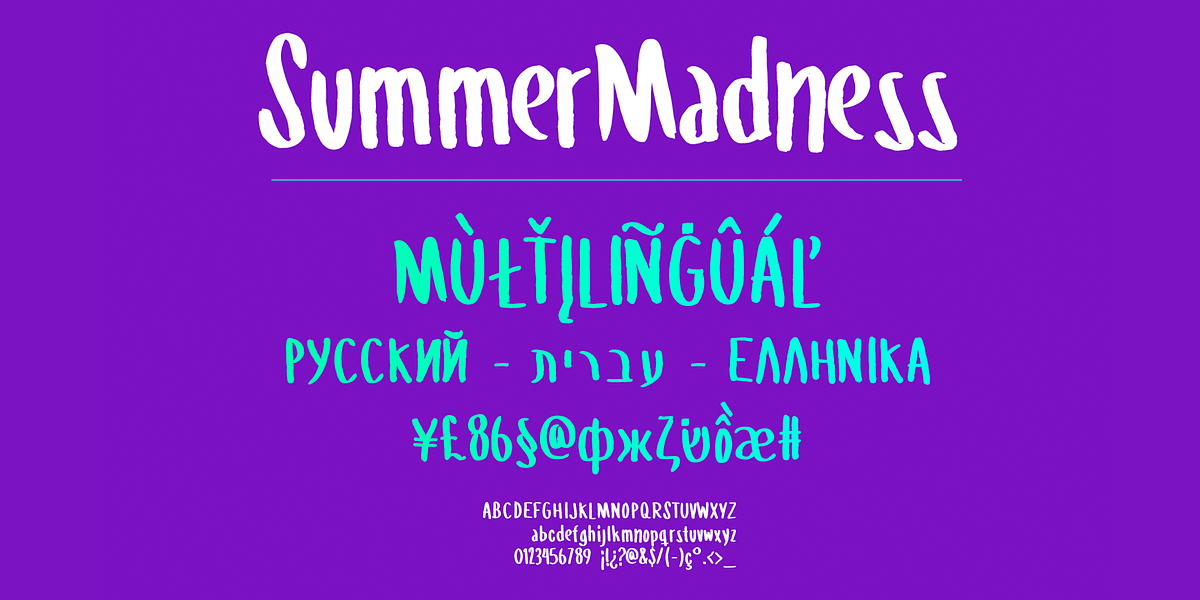
Summer Madness
This hand-drawn brush script font evokes a summery feeling with its casual and cool aesthetic. It is well-suited for branding, greetings, and other informal text applications.